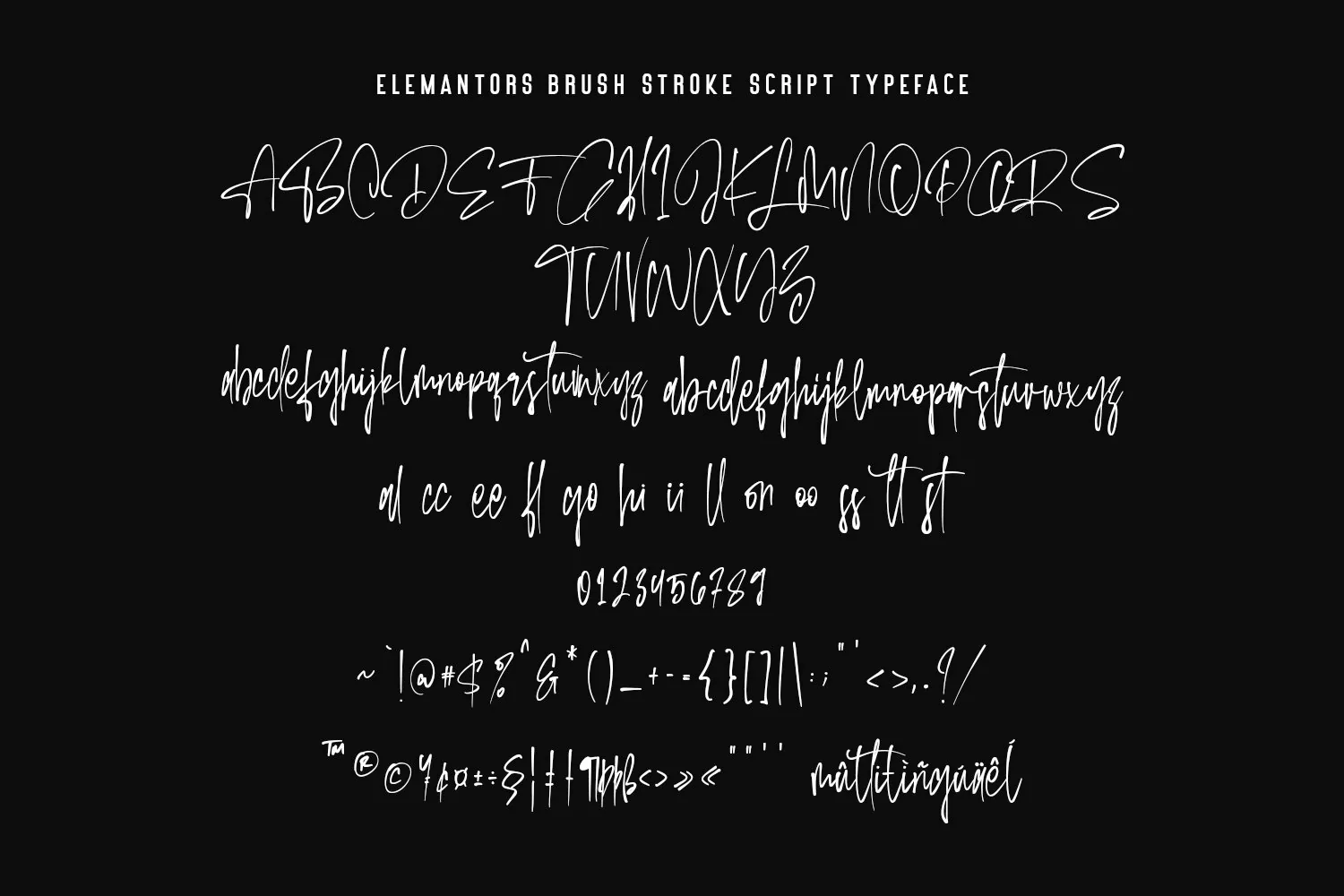
Give your designs an authentic handcrafted feel. "Elemantors Brush Stroke Script Typeface Alternate" is perfectly suited to signature, stationery, logo, typography quotes, magazine or book cover, website header, clothing, branding, packaging design and more.